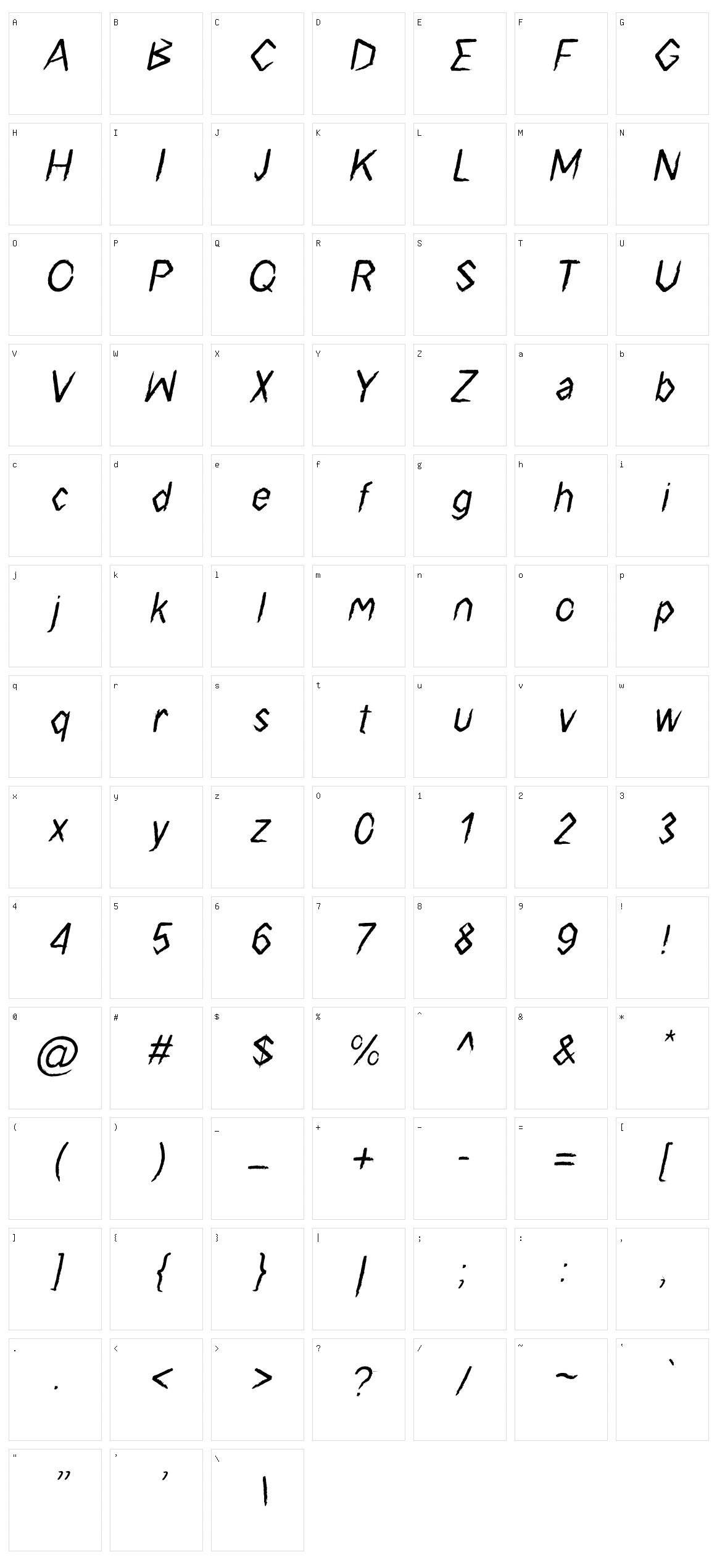
Take a break with the amazing Surf Breaks family font.
It will add a fresh and breezy feel to any design project that needs a hint of summer.
Features :
- Character Uppercase and Lowercase
- Numerals & Punctuations (OpenType Standard)
- Accents (Multilingual Characters)
- Brush Swash (A-z 0-9)